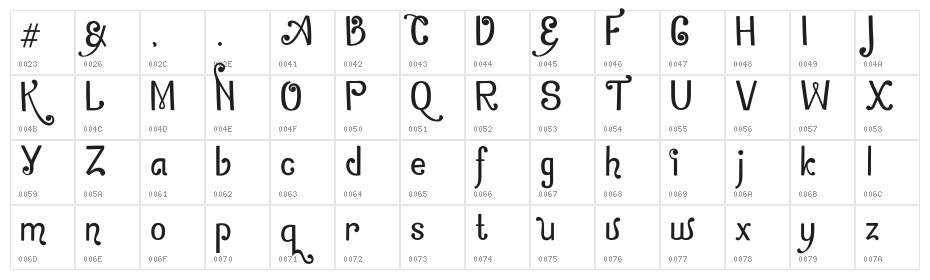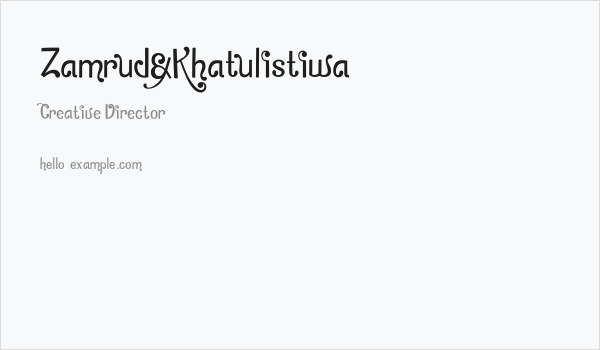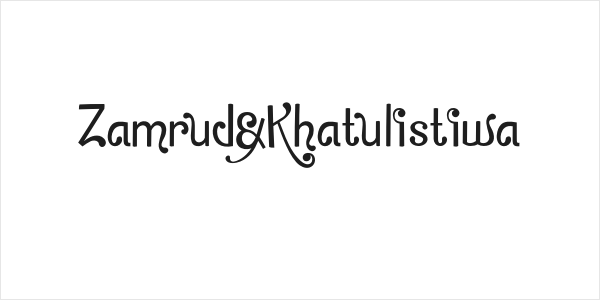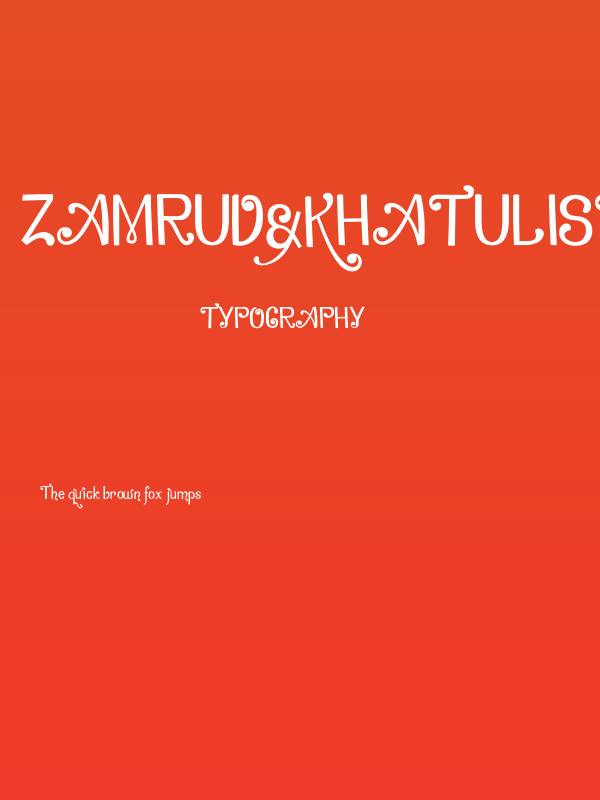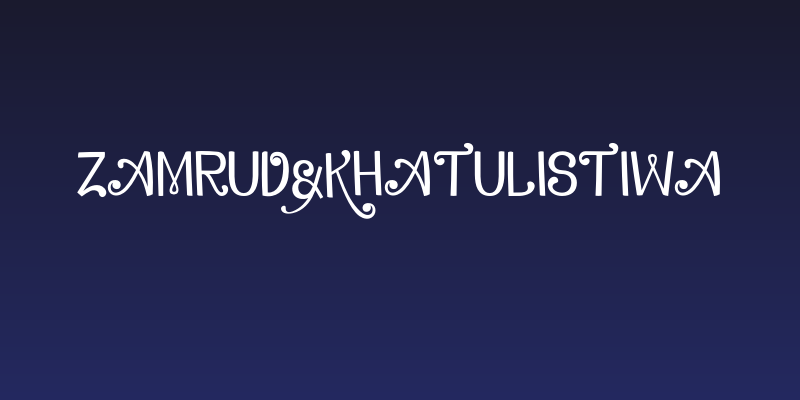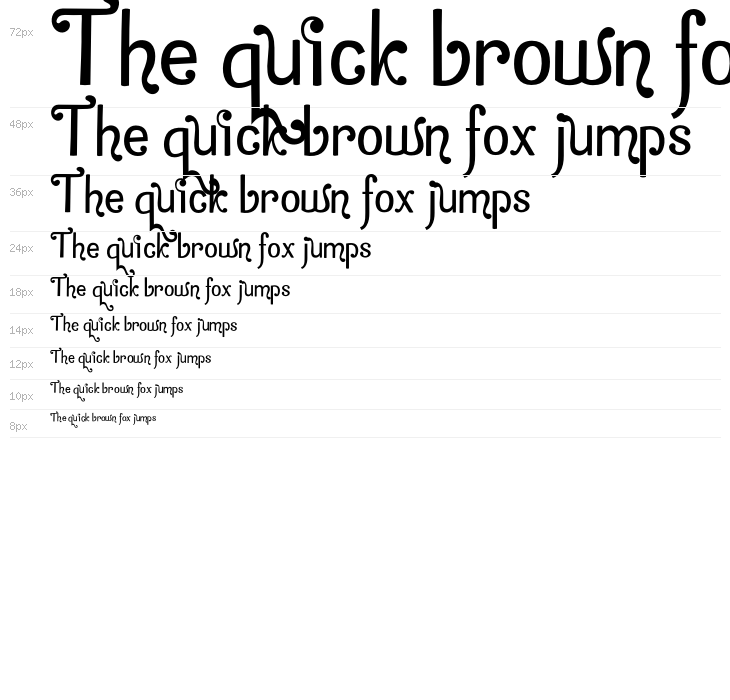
Zamrud&Khatulistiwa Font
Zamrud&Khatulistiwa Description
This font features a whimsical and playful design with a decorative flair. The uppercase letters are characterized by unique curls and swirls, adding a sense of movement and creativity. The lowercase letters maintain a consistent style, with rounded edges and playful loops. The numbers and special characters follow the same decorative theme, making them visually cohesive with the alphabet. This font is perfect for projects that require a touch of fun and creativity, such as children's books, playful branding, or artistic posters.
| Use Case | Headlines, Logos, Artistic projects |
| Proposed Projects | Ideal for children's books, playful branding, artistic posters, and creative invitations. |